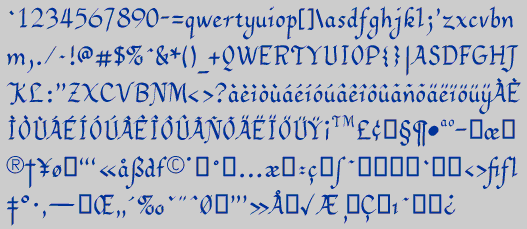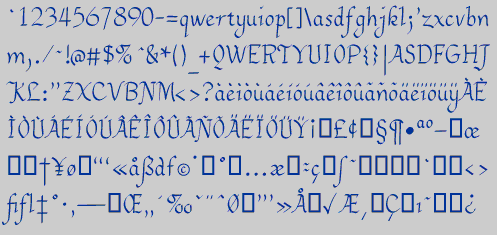
I constructed a number of calligraphic faces using the "Expand Strokes" feature in Fontographer. (I am giving away secrets here.) Instead of constructing the entire path of the letter, one constructs a line which a calligraphic pen will follow. Then one sets the size and angle of the pen, and from that line a calligraphic font appears. Of course, the quality of the end product depends on the quality of the original line--garbage in, garbage out.
GretchenHello is an informal cursive face which looks as if it were written with a calligraphic pen. Some calligraphic faces are elegant, meant to be used in formal places such as invitations. GretchenHello is not elegant but rather pedestrian. It seems to work best at point sizes from about 15 to 32.